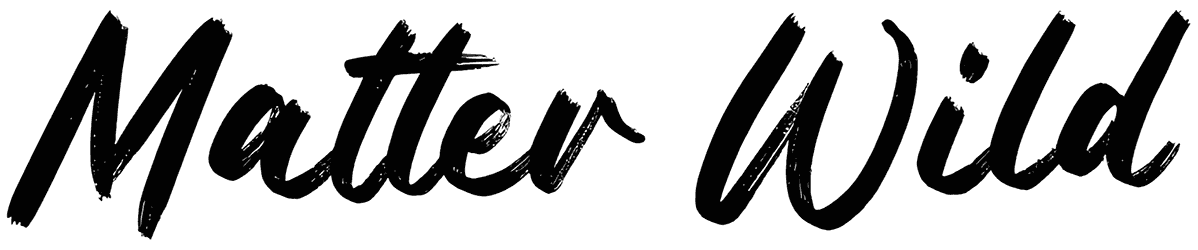
Matter Wild Font
Matter Wild is a script font full of details that is purely perfect for any creative design including posters, logos, billboards, banners, and web pages. This brush font is designed with a certain angle, so it carries a…
Matter Wild is a script font full of details that is purely perfect for any creative design including posters, logos, billboards, banners, and web pages. This brush font is designed with a certain angle, so it carries a sense of drama, captivating, and dynamic. Are you craving to have more font in the same category? Just take a look at our library.